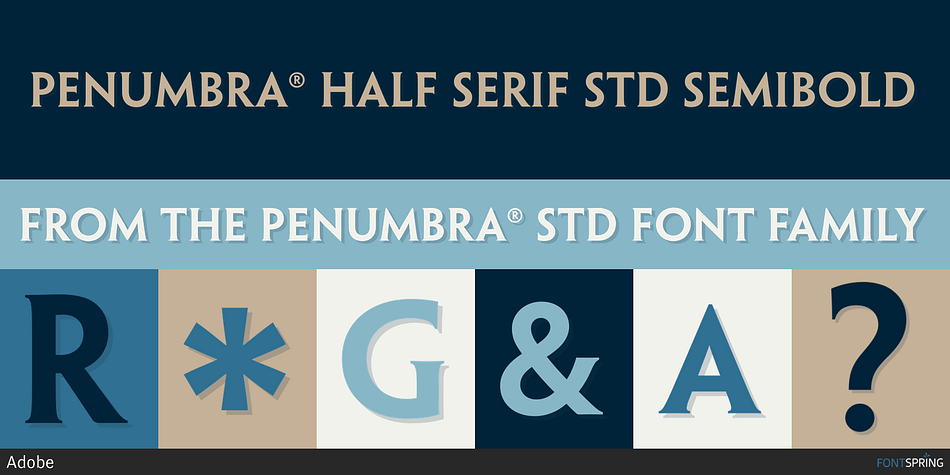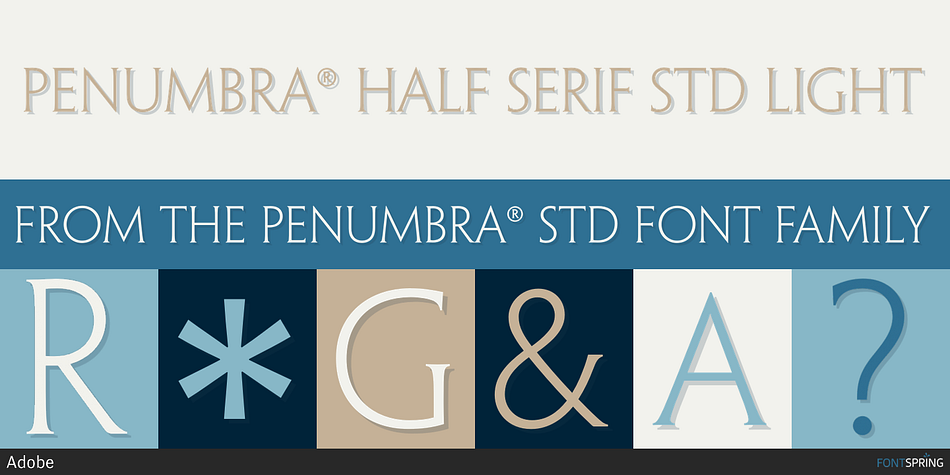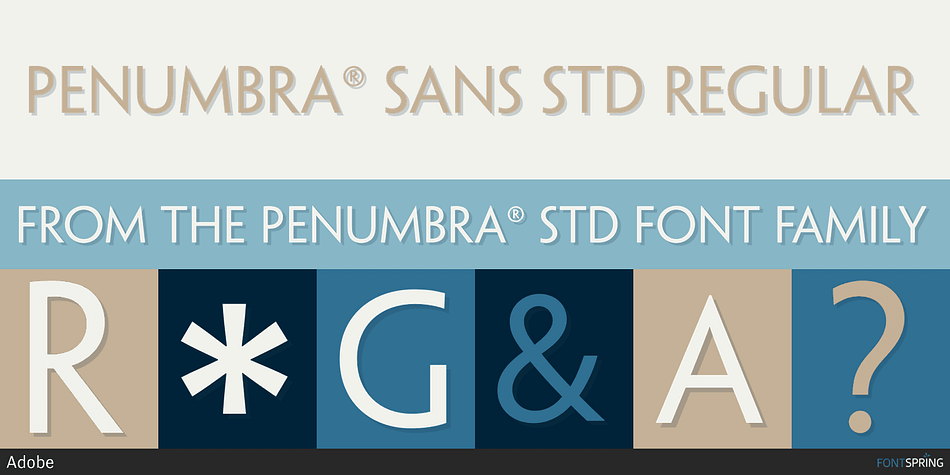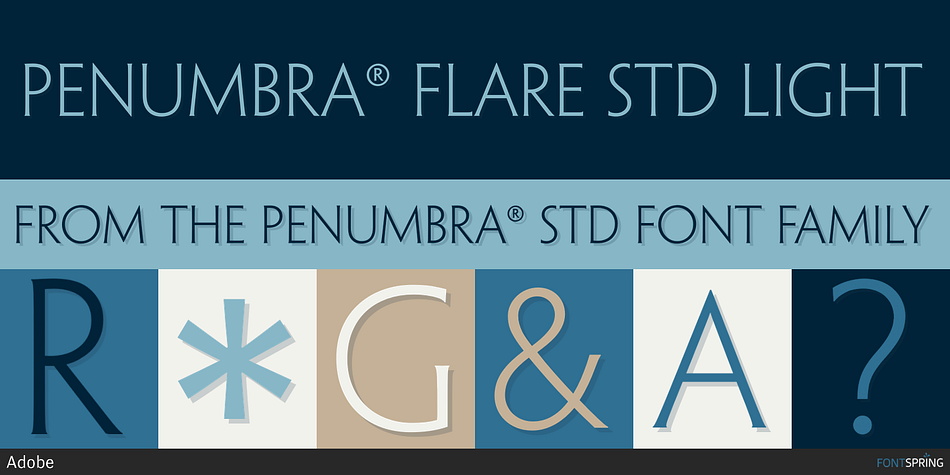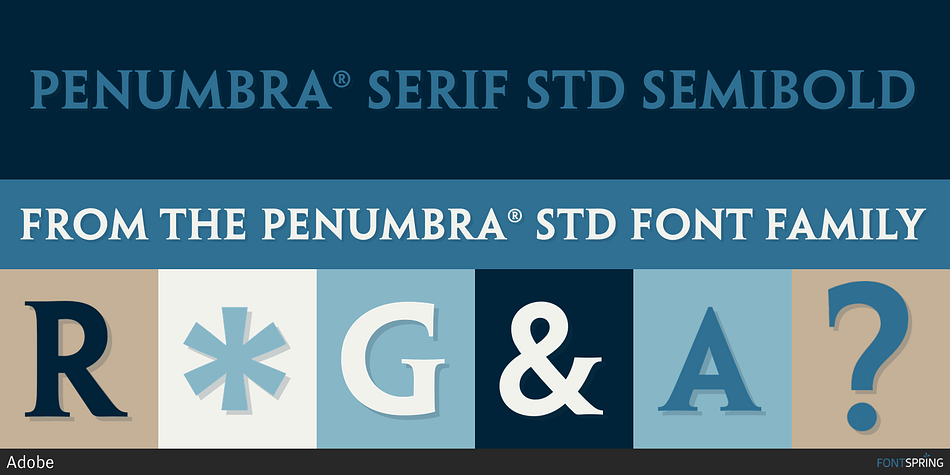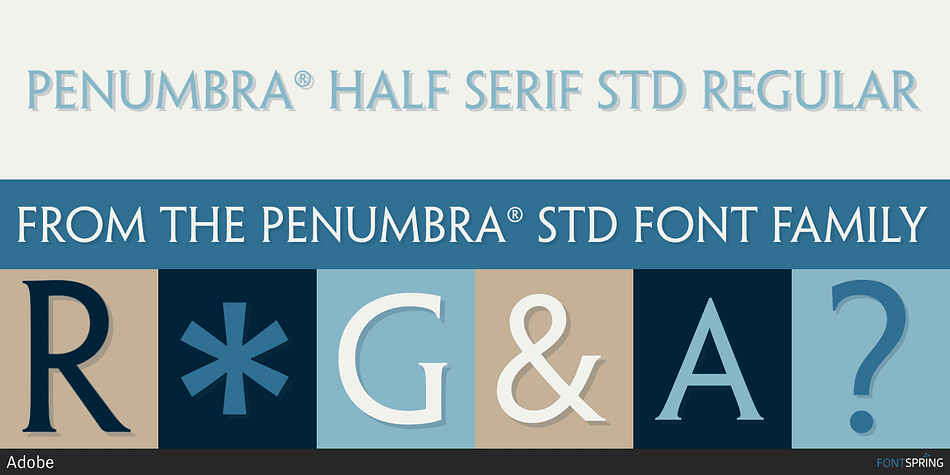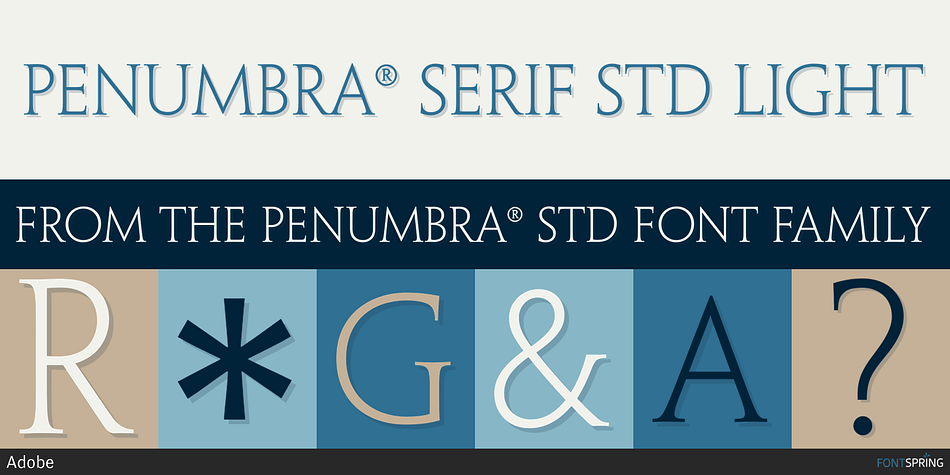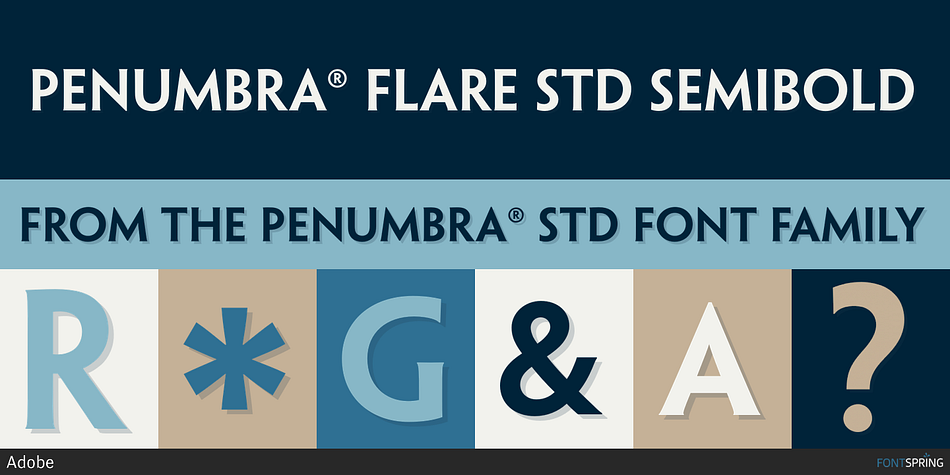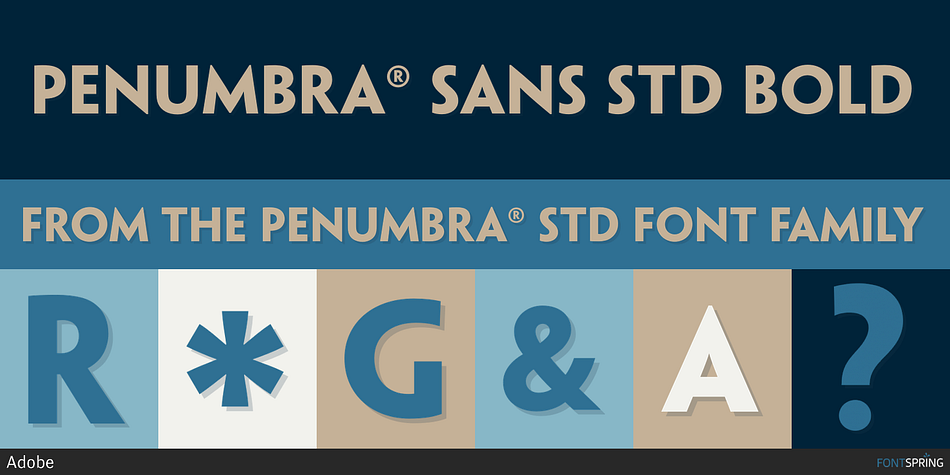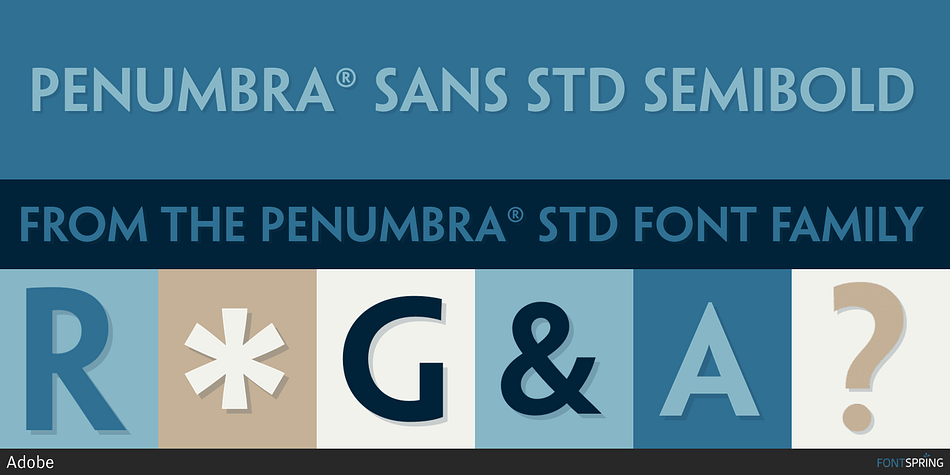
Penumbra® Std is a display sans and display serif font family. This typeface has sixteen styles and was published by Adobe.
Penumbra, designed by Lance Hidy in 1994, is an all-capital design. Hidy derived Penumbra from his poster lettering-monoline forms with a blending of contemporary and traditional qualities, which has evolved since the 1970s. Penumbra’s style range from a Futura-like sans serif to a Sistina-like serif can be successfully used in myriad display situations.